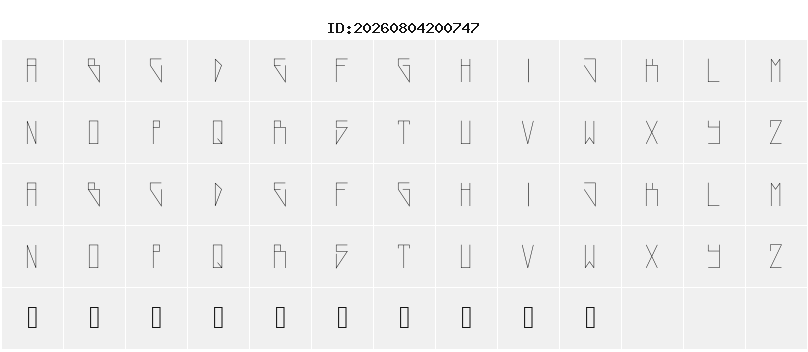
NewWorld Preview
• Font Name: NewWorld
• Full Font Name: NewWorld
• Character Count: 53
About NewWorld.ttf
NewWorld.ttf is a modern, elegant sans-serif font designed for ultimate readability and visual harmony. Perfect for branding, headlines, web design, and print materials.